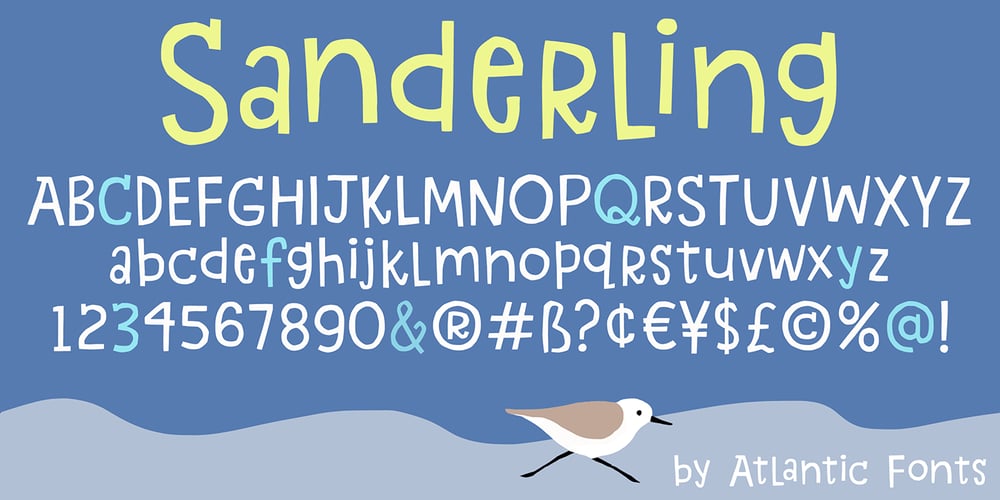
Sanderling
Sanderling font
Sanderling Font Family was designed by Amy Dietrich and published by Atlantic Fonts. Sanderling contains 1 styles and family package options. Sanderling is irrepressibly cheerful. Turn on discretionary ligatures to access double-letter ligatures for both cases, plus more chirpy ligatures designed to give flight to Sanderling’s lively character. Sanderling has the legs to make waves!